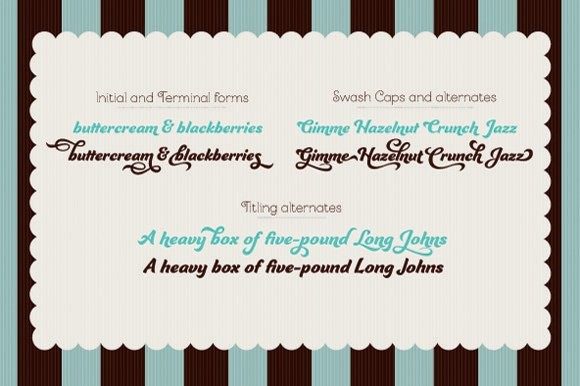
Unleash the allure of Ganache, a captivating script font that dances between legibility and sophistication, making it the perfect choice for designers seeking distinctiveness. Experience the joy of creating designs that tantalize the senses, leaving a lasting impression on your audience.
Ganache exudes a cheerful warmth, inviting the eyes to linger and explore its intricate details. Inspired by delectable treats like marshmallows, butterscotch, and frosted donuts, this font evokes a sense of indulgence and delight. It's not just a font; it's an edible masterpiece that will make your designs irresistible.
With its graceful curves and playful spirit, Ganache adds a touch of whimsy to logos, branding, packaging, and more. Its versatility extends to invitations, posters, and social media graphics, making it the ideal choice for any project that demands attention.
Dive into Ganache's intriguing exploration of negative space. Witness the lowercase suffix "ing" as the swash of the "n" gracefully intertwines with the "g," creating a delightful visual dance. Discover the unexpected shapes hidden within the counters of the uppercase letters, adding a touch of intrigue to your designs.
Ganache's strength lies in its ability to maintain clarity and impact, even in reversed out lettering. The counters take center stage, amplifying the font's presence and ensuring your message shines through.
Elevate your designs to new heights with Ganache, the font that embodies charm, intrigue, and individuality. Let its allure captivate your audience and leave them craving more. Embrace the power of Ganache and unlock a world of creative possibilities.